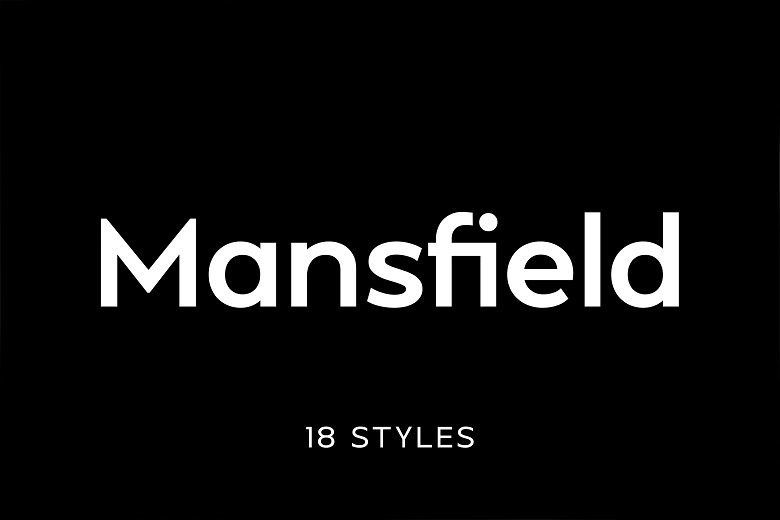
Mansfield is a clean and universal geometric sans-serif typeface with tastes to the avant-garde of the twentieth century typeface’s family like Futura. Mansfield is classified as neo-grotesque sans-serif font since it shares many features with the fonts of this type: its letterforms are geometric, it has straight stems and sharp corners, and the contrast of thick and thin strokes is low. Its slender looks and accurate work make it suitable to be used in different design related zes, starting from the branding projects and ending with the editorial ones.
The font family of Mansfield comprises of 9 weights and 18 styles, which means total solutions to all the creativity you can imagine. Its suitability and contemporary style makes it appropriate for use in magazines, posters, branding, Internet and applications, banners and many other communation and commercial projects. Fitting for both, print and web, Mansfield offers the freedom to attain a refined appearance to the format.
Mansfield attracts a lot of designers who want to make their product look as classic as possible and at the same time as modern as possible. This font family is perfect for work such as a logo, website, poster, or any design where a designer needs an excellent give-me-visible-results type font. Mansfield is a highly useful tool for any artist that would like to modernize their work.
Mansfield is an introduced stylistic design that cuts across the varying sizes, thus guaranteeing your work the recognition it deserves. Check out these features with this geometric sans-serif font family and see how your designs can evolve further.